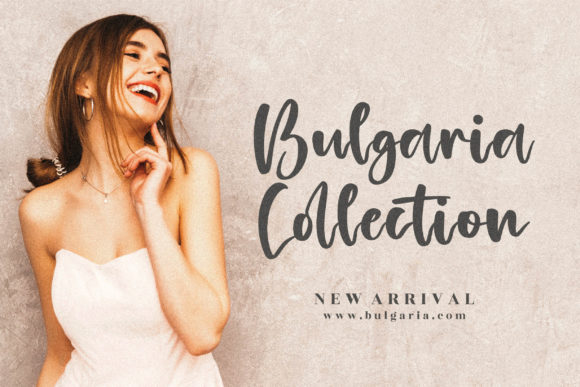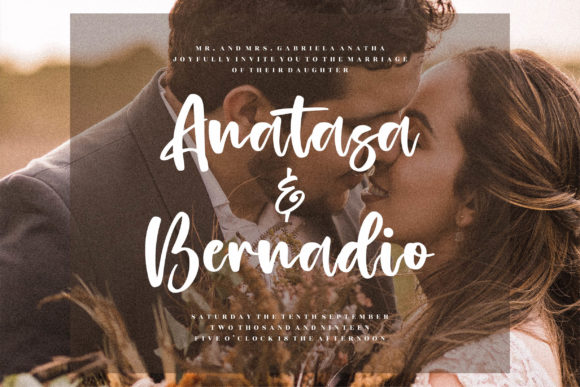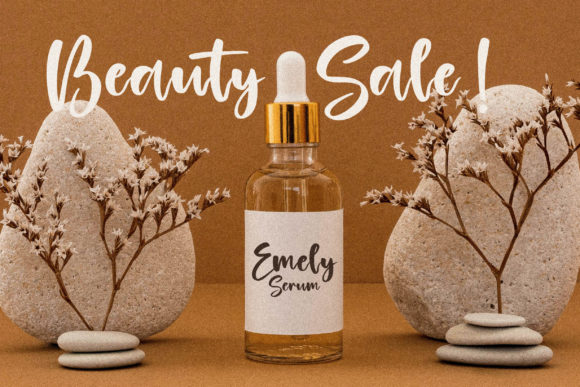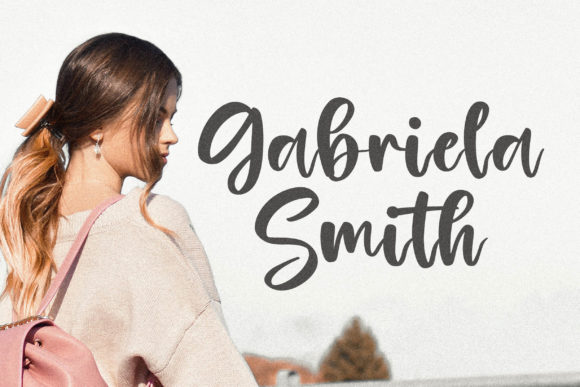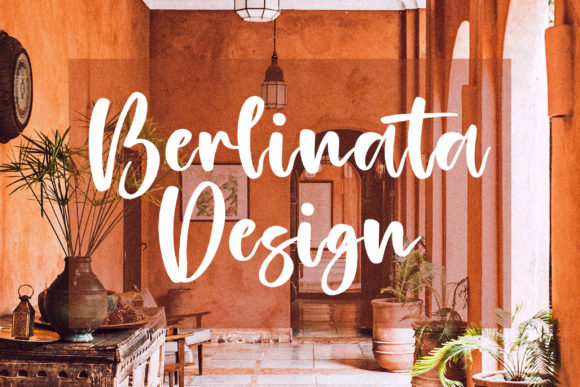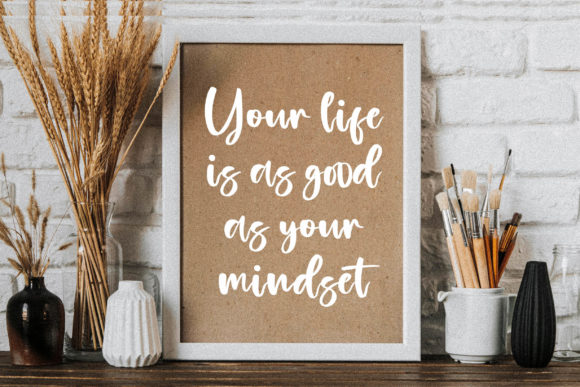
The Perfect Partner for Your Creative Projects
Have you ever stared at a blank page, feeling stuck and unsure of where to begin? That’s where the magic happens – when a spark of inspiration strikes, and your creative juices start flowing. For many designers, it’s the moment when the right font comes along that sets the tone for their entire project.
Enter the Blondeta Font, a charming script font that’s sure to bring a touch of whimsy to your most creative ideas. With its playful characters that seem to dance along the baseline, Blondeta Font adds a delightful flair to any design. Whether you’re working on a logo, a poster, or a social media graphic, this font is the perfect partner to elevate your work and make it stand out from the crowd.
As a valuable addition to any designer’s toolkit, Blondeta Font offers a unique and eye-catching way to express your creativity. With its versatility and charm, it’s no wonder that designers are falling in love with this font and incorporating it into their most innovative projects.
Key Features of Blondeta Font
- Unique Characteristics: Blondeta Font features a distinctive, elegant design with a blend of modern and vintage elements, making it suitable for a variety of design applications, from fashion and beauty to luxury and lifestyle.
- Character Set: Blondeta Font includes a comprehensive character set, including Latin, Cyrillic, and Greek alphabets, as well as a range of punctuation and symbol characters.
Blondeta Font Review
Overall, I think the Blondeta font has some great qualities, but it’s not perfect. Let’s start with the good stuff.
✨ I love the playful, cursive feel of this font. It’s perfect for adding a touch of whimsy to your designs, especially for branding or packaging projects. The curly details and smooth lines make it visually appealing.
✨ The font is highly customizable, with a wide range of weights and styles to choose from. This makes it easy to adapt to different design needs and moods.
✨ Blondeta also has excellent legibility, making it suitable for body text as well as headings.
- ⚠️ The font can be a bit too ornate for some projects. If you’re going for a clean, minimalist look, Blondeta might not be the best choice.
- ⚠️ At small font sizes, the curly details can become difficult to read.
Overall, I think Blondeta is a great addition to any designer’s toolkit. While it may not be the perfect font for every project, it’s definitely worth having in your arsenal. With some careful selection and use, you can create some truly stunning designs with Blondeta.
For optimal results, use Blondeta Font in titles and headings, and pair it with a clean sans-serif font for body text.
Use Blondeta Font to add a touch of elegance to your graphics and designs.
Use Blondeta Font to create a professional and sophisticated look in your presentations and documents.
Blondeta Font is perfect for:
- Formal event invitations
Remember to pair Blondeta Font with a clear and concise message to make the most out of its elegant and sophisticated design.